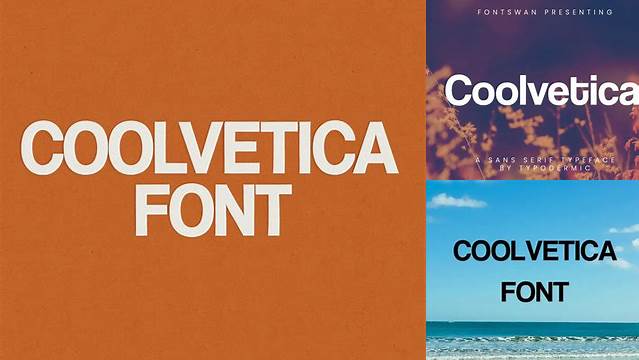
Alright, guys, let's dive into the world of fonts! Specifically, we're talking about the super cool Coolvetica font. This font is a modern classic, and the best part? You can often find Coolvetica fonts free download options! In this article, we'll explore where you can snag this awesome font, why it's so popular, and how to make the most of it in your projects. Buckle up, because we're about to get font-tastic!
This modern sans-serif typeface has a clean, geometric appearance that makes it incredibly versatile. It works well in a wide variety of design contexts, from website headers to print materials. Its readability and aesthetic appeal make it a popular choice among designers and non-designers alike. Its use extends to both digital and print media. Its popularity can be attributed to its versatility, its clean and readable design, and its availability through free downloads. The Coolvetica font free download options make it accessible, which is a significant part of its appeal. Its widespread use ensures that it is a recognizable element in modern design, which is why many designers often use it in a variety of projects, from logos and branding materials to web design.
Coolvetica vs. Similar Fonts: A Comparative Look
When exploring options beyond the Coolvetica font free download, it's useful to compare it with similar fonts. This comparison can help you to determine whether Coolvetica is the best fit for your project. There are several fonts that share similar characteristics with Coolvetica. One popular alternative is Helvetica, a classic sans-serif font. It's known for its clean lines and high readability, very similar to Coolvetica. Another option is Arial, which is also a sans-serif font and is commonly used due to its widespread availability. It's a good choice if you need a font that is widely supported across different platforms. Then, there's Gotham, a modern sans-serif font that features a similar geometric style and clean lines. It's frequently used in branding and advertising. Each font has unique nuances and strengths. Coolvetica has a slightly more playful feel, with a modern touch. Helvetica is known for its neutrality and timelessness. Arial is a more generic option, widely available and well-suited for basic needs. Gotham is known for its geometric structure, giving it a contemporary look. When selecting a font, consider your project's purpose and the message you want to convey. For a modern look, Coolvetica or Gotham might be your choice. For simplicity and widespread use, Helvetica or Arial could be a better fit.
Coolvetica's Design Features and Characteristics
Let's get into what makes the Coolvetica font free download such a standout choice. Coolvetica is a sans-serif typeface, meaning it doesn't have those little